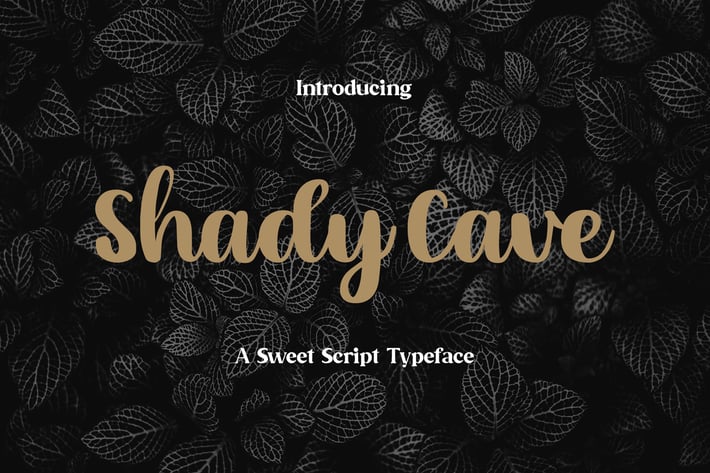
Shady Cave - Script Font
Shady Cave is a simple, elegant and relaxed handwritten font. Fall in love with its incredibly versatile style and use it to create beautiful designs!
Highlight :
- Basic Latin A-Z and a-z
- Numbers
- Symbols